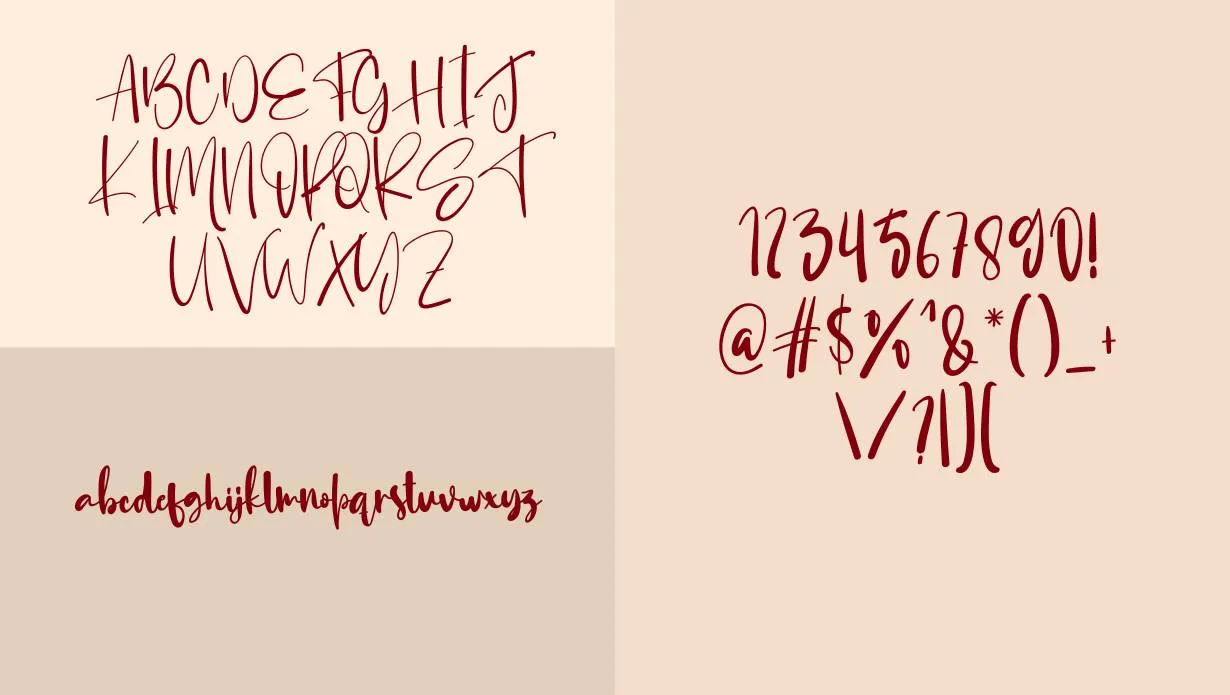
Softball Font is a playful and decorative typeface known for its whimsical and imaginative design. It’s often used in sports-related designs, children’s books, party invitations, and creative branding, bringing a touch of charm and creativity to the visuals.
| Name | Softball Font |
| Designer | Monotype Foundry |